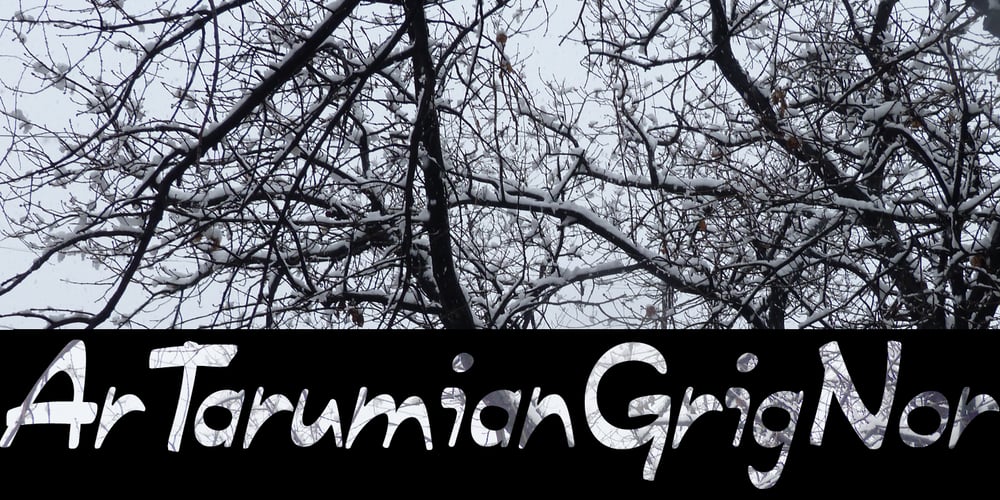
ArTarumianGrigNor Font Family was designed by Ruben Hakobyan (Tarumian) and published by Tarumian. ArTarumianGrigNor contains 1 styles and family package options. This typeface reproduces letters written with a broad-nib pen casually by hand. The pen direction is close to vertical. Designed to create captions for illustrations, especially children’s books, as well as for inscriptions in balloons of comics.